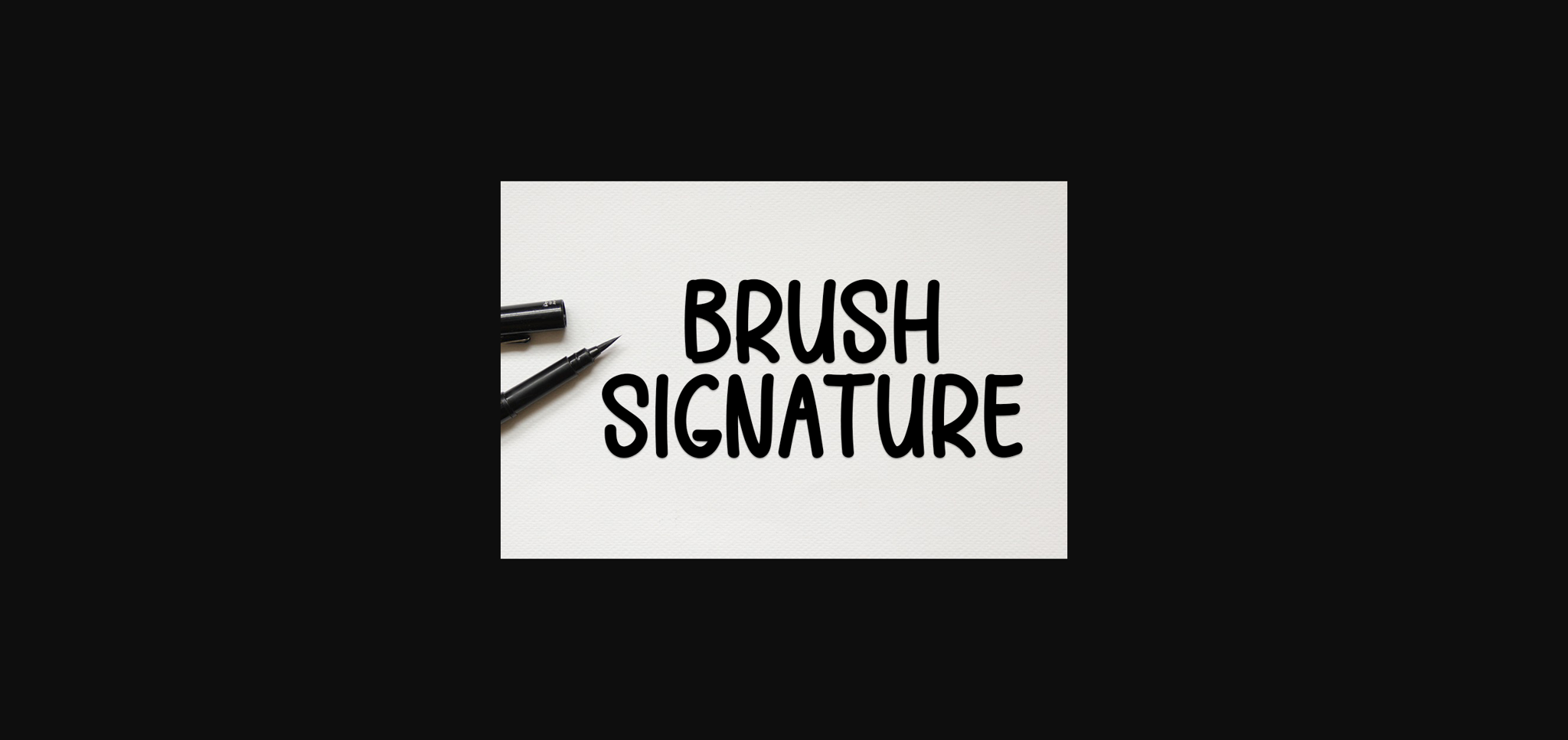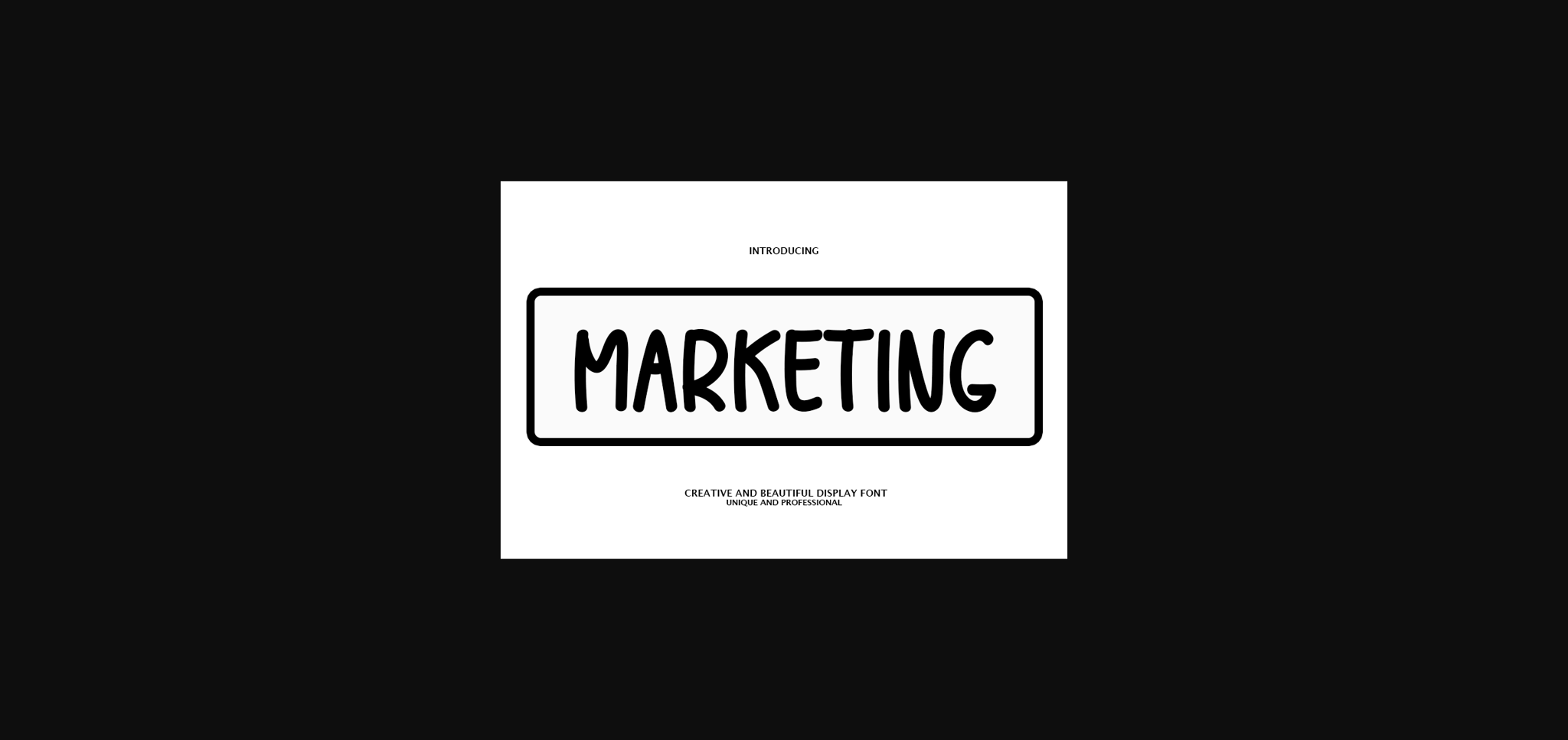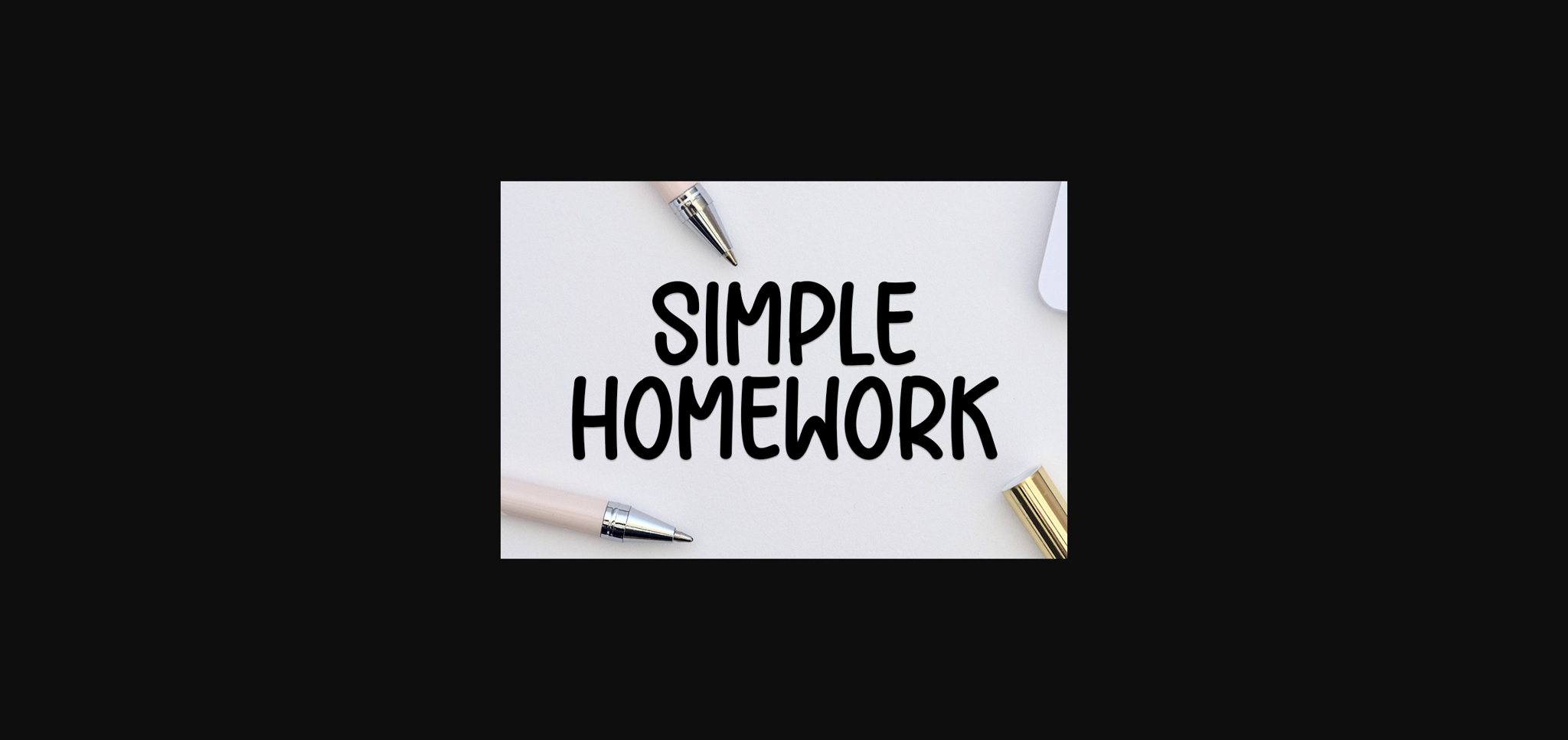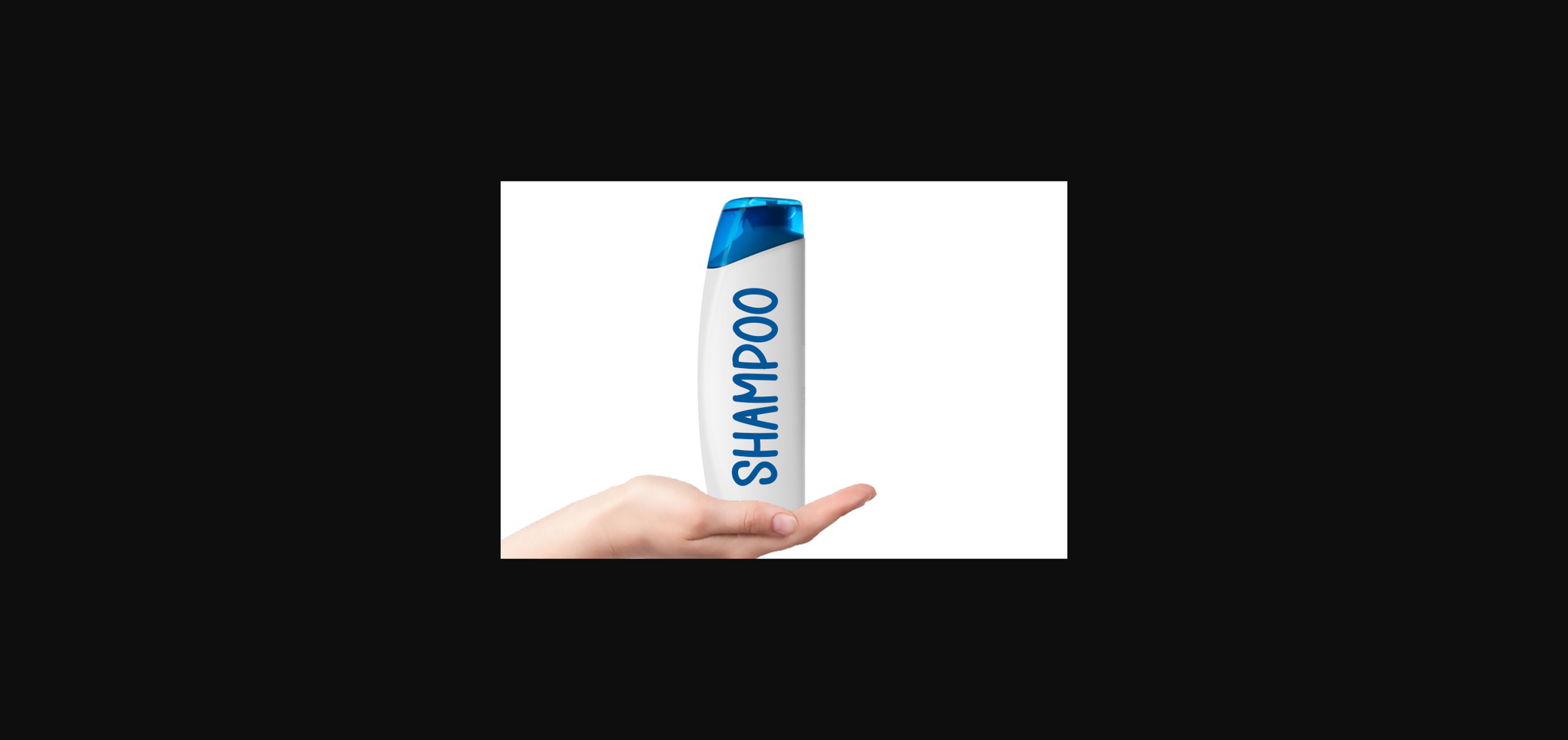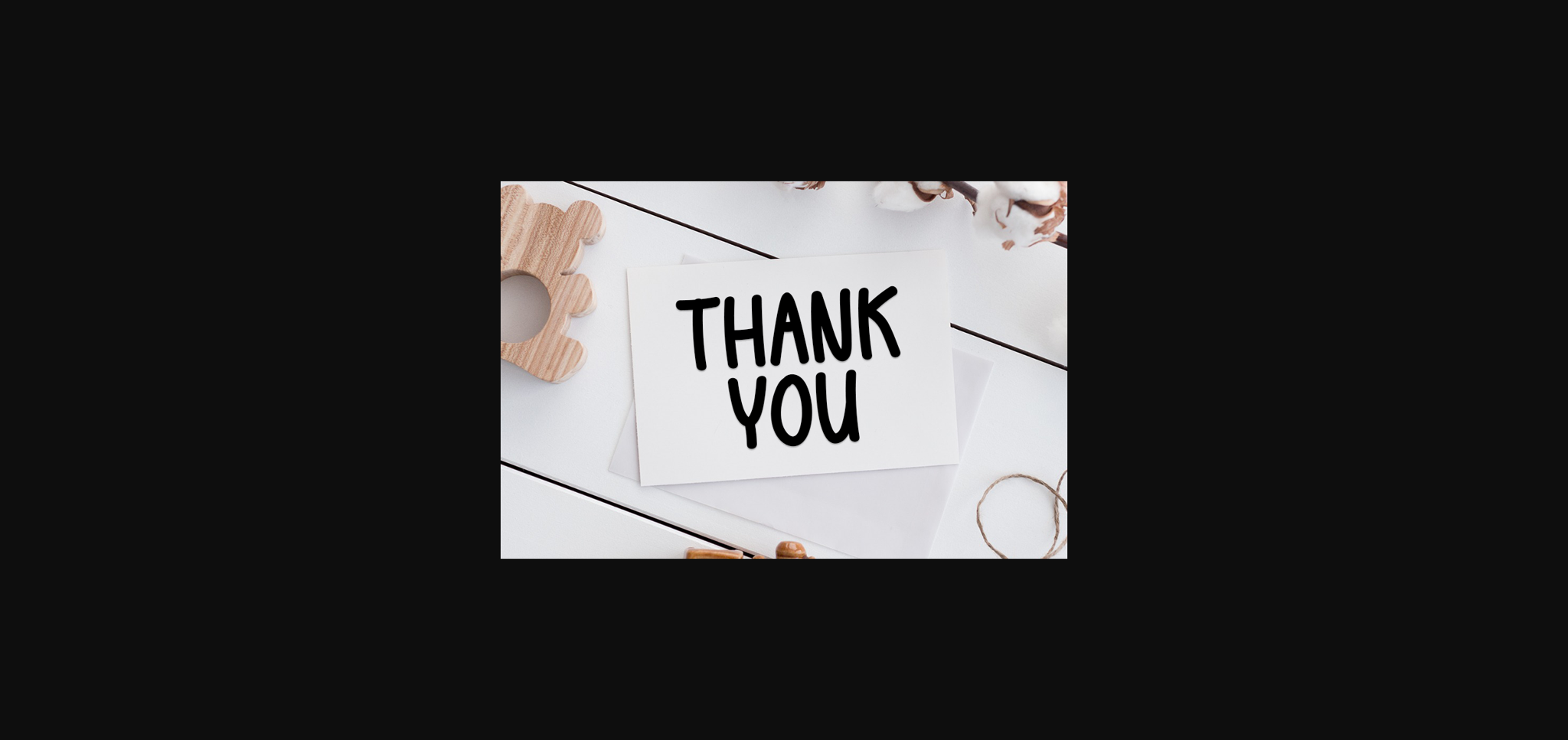
HomeSans Serif FontsMarketing Font Sans Serif Fonts Marketing Font FacebookXPinterestWhatsApp 1 of 7 ... Marketing Font Poster 2... Marketing Font Poster 3... Marketing Font Poster 4... Marketing Font Poster 5... Marketing Font Poster 6... Marketing Font Poster 7... About Marketing Font Marketing is a cool and modern sans-serif font. Whether you’re using it for crafts, digital design, presentations, or creating greeting cards, this font has the potential to be your go-to font, whatever the occasion. DOWNLOAD NOW People also explored Tessan Font Other Santiago Font Vanrow Font Strawberry Font Hierra Vinalla Font Golden Bless Font Wedding Halloween Font Fatal Darkness Font 290 0 TagsMarketing Font Previous articleBelove FontNext articleSeanor Font LEAVE A REPLY Cancel reply Comment: Please enter your comment! Name:* Please enter your name here Email:* You have entered an incorrect email address! Please enter your email address here Website: Save my name, email, and website in this browser for the next time I comment. Personal Use Free Brittish State Personal Use Free Read more about this font Hunters Personal Use Free Read more about this font Bashira Personal Use Free Read more about this font Handayani Personal Use Free Read more about this font BLOG How to Install and Use Fonts on Windows, macOS, and Web Projects How to Install and Use Fonts on Windows, macOS, and Web Projects Fonts are a crucial part of design and branding. Whether you’re designing a... Using Fonts in Digital Marketing: Tips to Strengthen Your Brand Identity Elegant Wedding Invitation Fonts – Handwritten & Script Fonts Free vs Paid Fonts: Why Investing in Premium Fonts Is Worth It